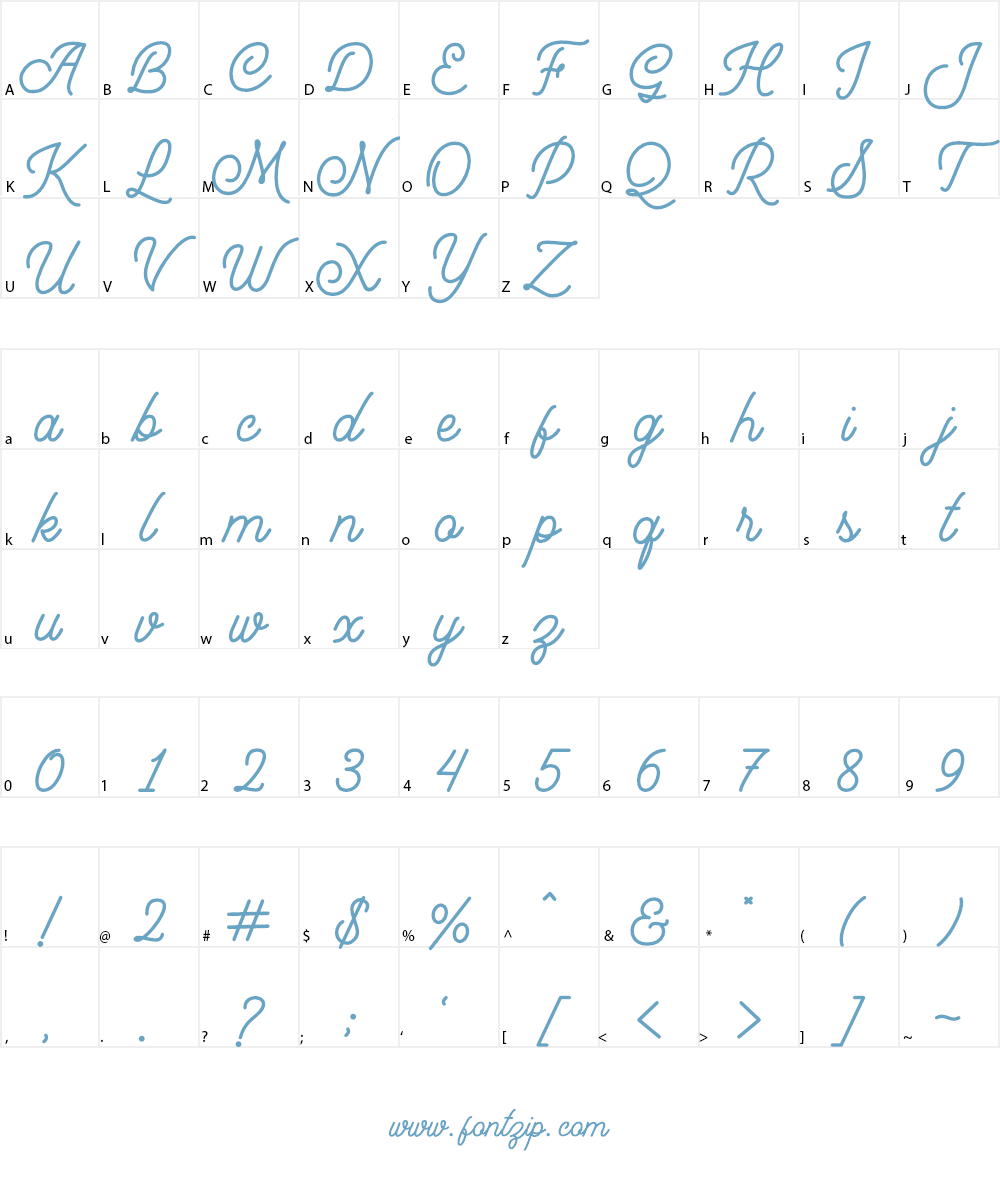
Mountecarlo Script Monoline is a beautiful mono-line font, perfect for logo design, branding, clothing design, signage, posters, wedding invitations and so much more! My goal with this font was to create an easily legible script font which would work for a wide variety of purposes. This font retains my personality within the characters as they were initially based off my own handwriting and later tidied up to create a set of consistent characters. Having that handmade feel and personal touch certainly gives it a hint of authenticity